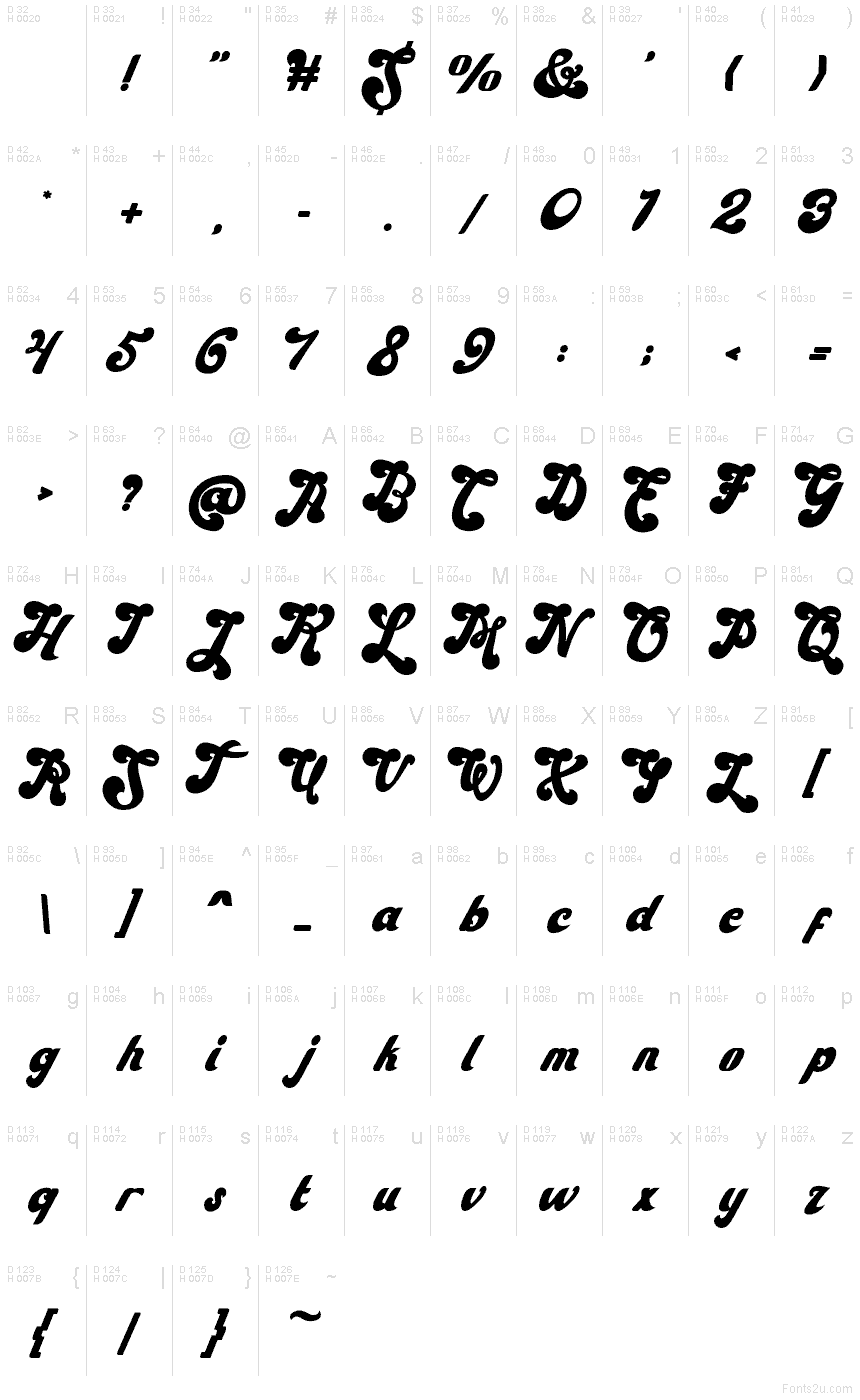
Jhonie Screw
Jhonie Screw font is a whimsical brush typeface by PutraCetol Studio. Each glyph has its own unique personality while being consistent with each other and with an overall artistic flair. The strokes are bold across all elements which allow strong contrast between the letters and the background.
Applications of this free handwritten font may include headings, posters, invitations, craft projects, personal branding projects, product packaging design (labels), quotes for social media posts (Instagram), marketing materials (print/digital). It also makes a good addition to handmade artwork projects such as greeting cards or stickers.